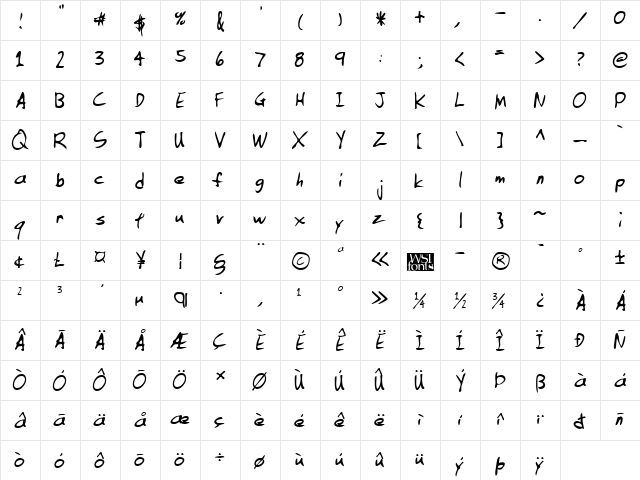
IrvingsHand Regular
Design Context for IrvingsHand Typeface
IrvingsHand flows with the natural rhythm of handwritten lettering, making it ideal for designs that call for warmth and personal expression.
Font Pairing: Combine IrvingsHand with a simple geometric sans for maximum contrast — the tension between flowing curves and clean structure is a classic typographic pairing.
Pro Tip: Pair IrvingsHand with a clean sans-serif for supporting text. The contrast between fluid script and geometric structure creates an elegant typographic hierarchy.